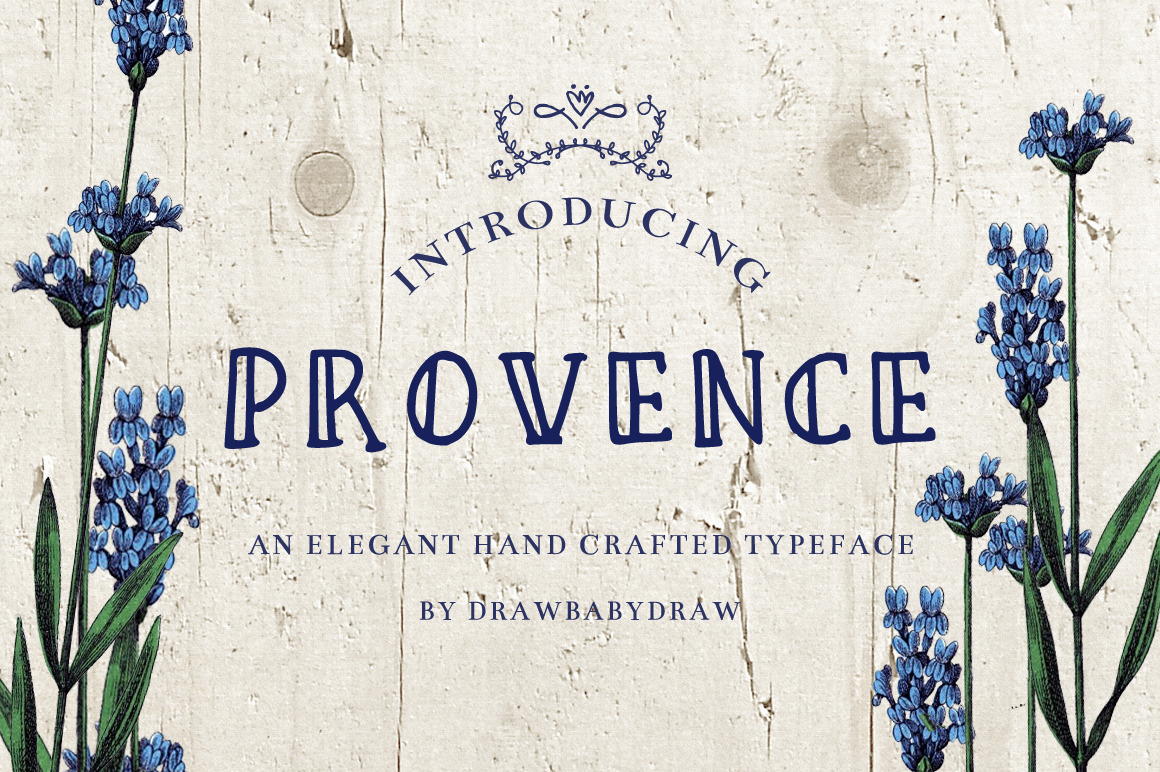
Vintage Font- Provence
Inspired by vintage soap packaging, I set out to create a fun, hand-drawn typeface which would combine old-time elegance with today's fun, hand-lettered trend. "Provence" is a super versatile display font, and pairs beautifully with both serif and sans-serif fonts :)